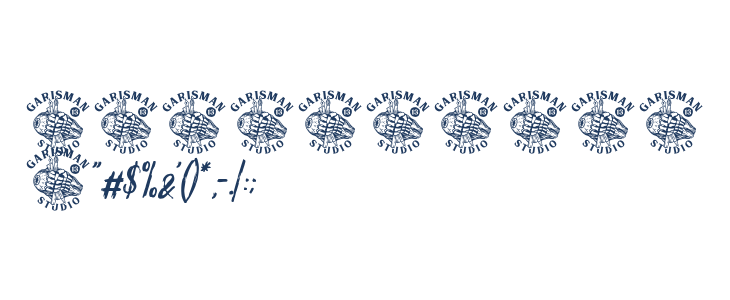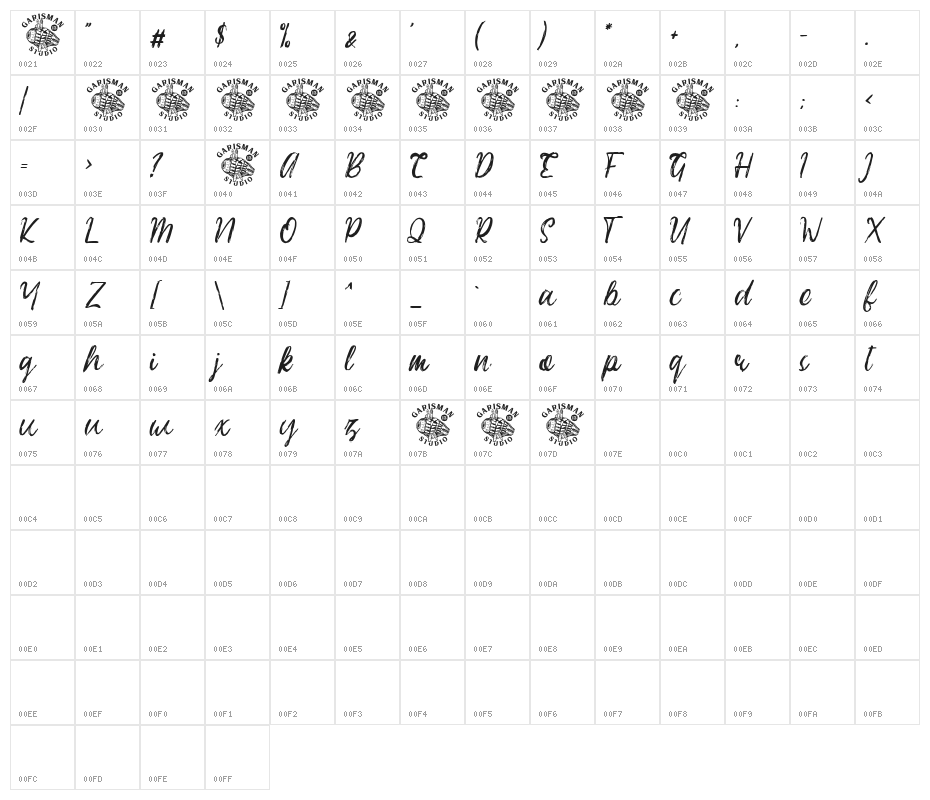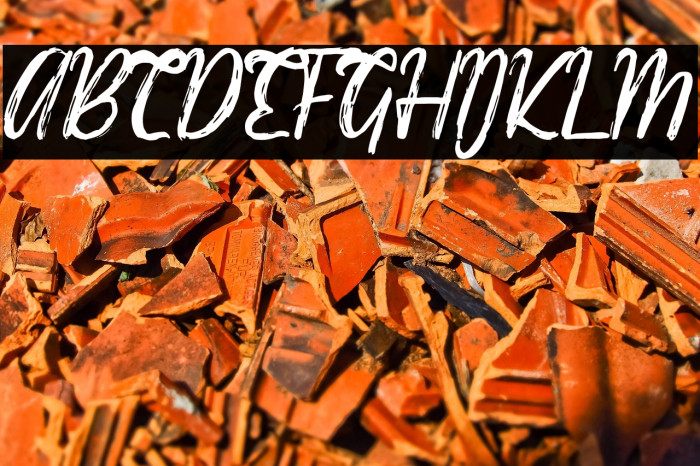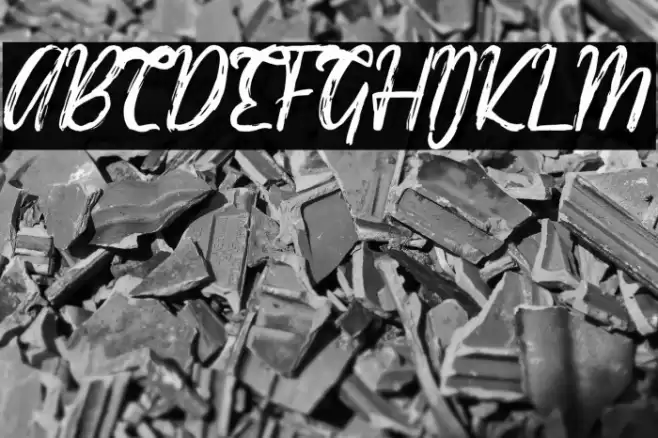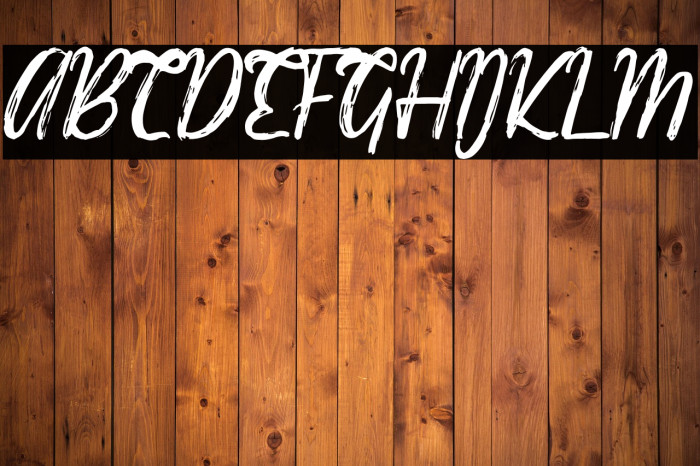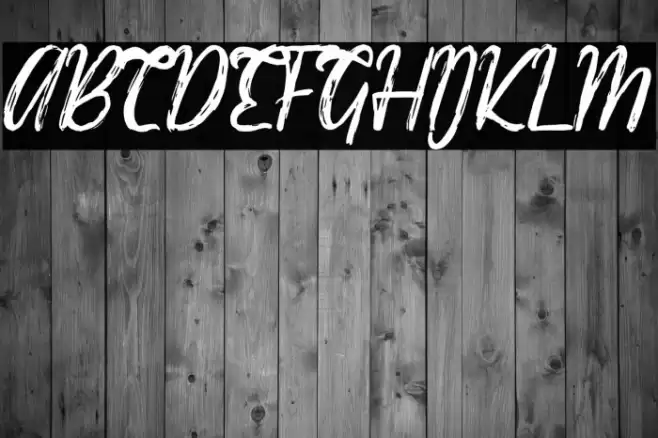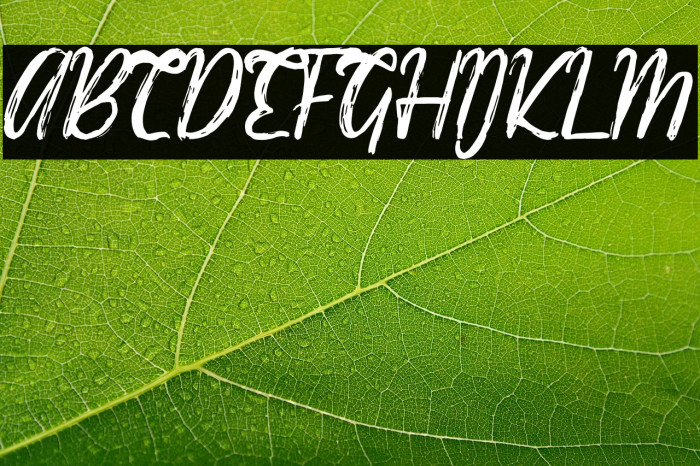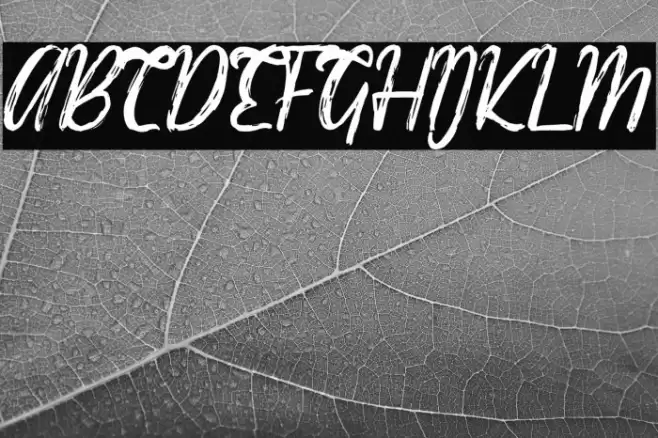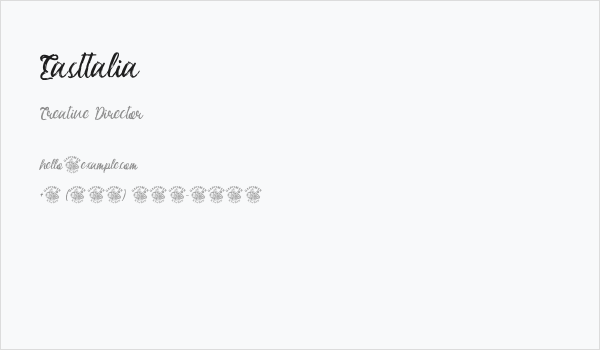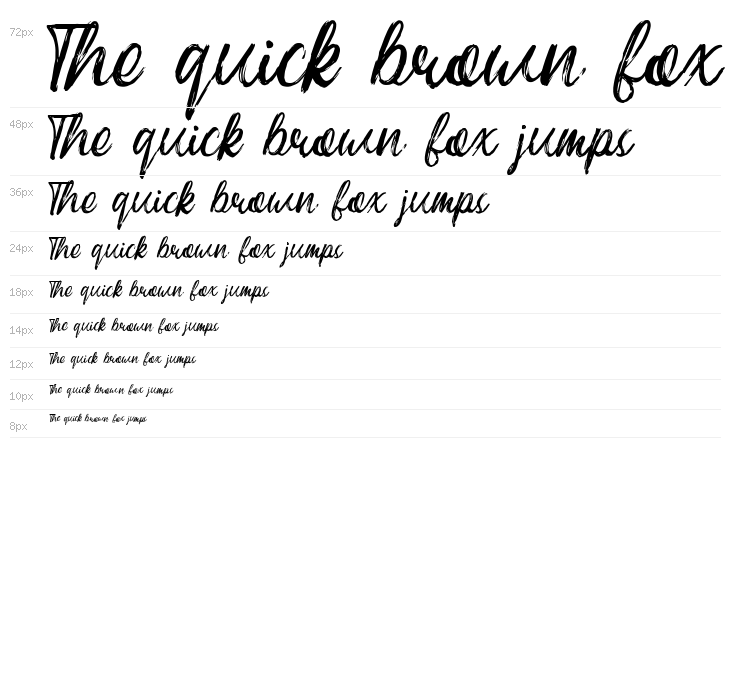
Easttalia Font
Easttalia Description
This font exudes a bold and expressive handwritten style, characterized by its dynamic brush strokes and fluid motion. The letters are crafted with a sense of spontaneity, giving each character a unique and artistic flair. The uppercase and lowercase letters maintain a consistent style, with the uppercase being slightly more pronounced. The numbers and special characters follow the same energetic design, making them stand out. This font is perfect for projects that require a personal touch or an artistic edge, such as branding, invitations, or creative posters.
| Proposed Projects | Ideal for branding, invitations, creative posters, and artistic projects. |